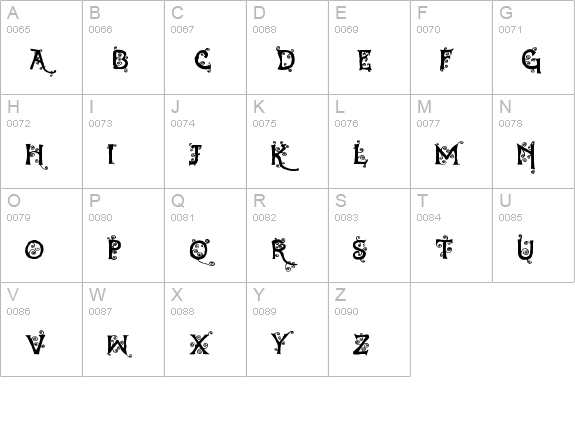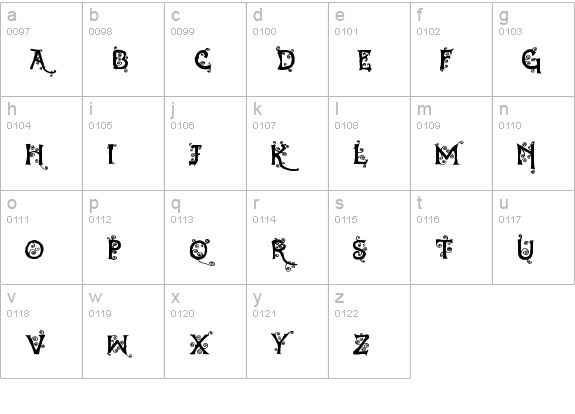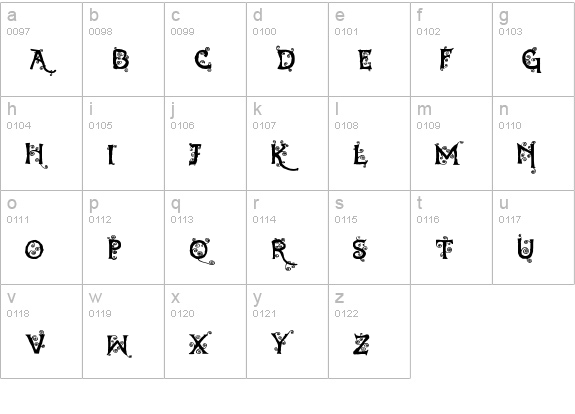
Dearest Dorothy Font Details
Dearest Dorothy font is a charming and elegant typeface that exudes a sense of warmth and nostalgia. Its graceful curves and delicate serifs give it a timeless appeal, making it perfect for adding a touch of sophistication to any design project. The font's classic yet modern style makes it versatile and suitable for a wide range of applications, from invitations and greeting cards to branding and packaging. What makes Dearest Dorothy font even more appealing is that it is available for free download at FontsMarket.com. This means that you can easily access and use this beautiful typeface in your projects without any cost. Whether you're a designer looking to elevate your creations or someone looking to add a touch of elegance to personal projects, Dearest Dorothy font is a wonderful choice that won't break the bank. Download it today and let its timeless beauty enhance your work.